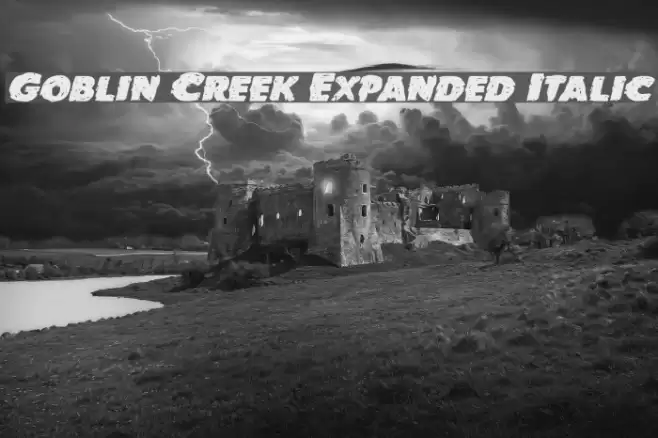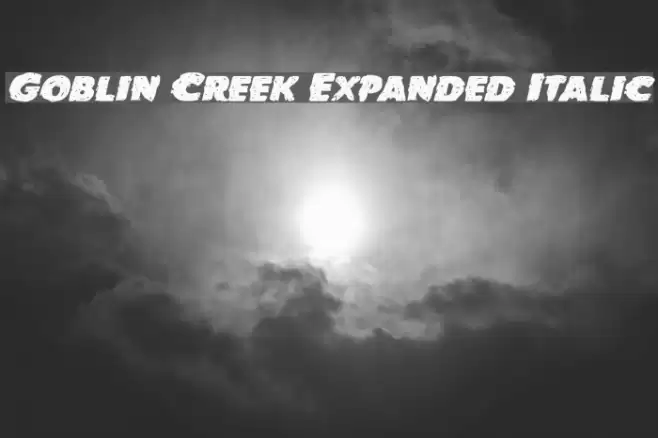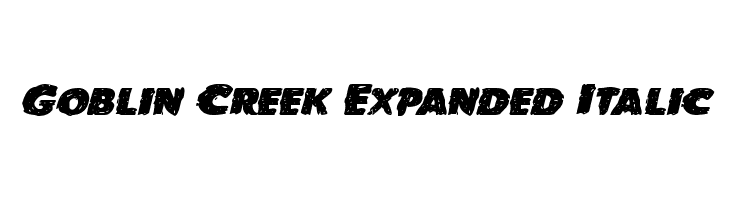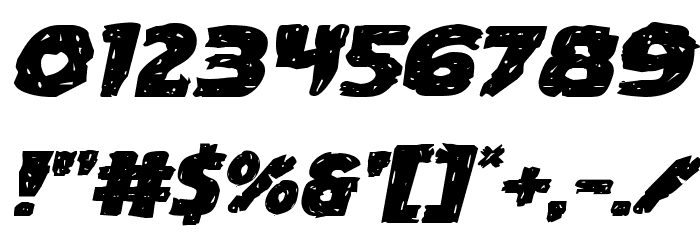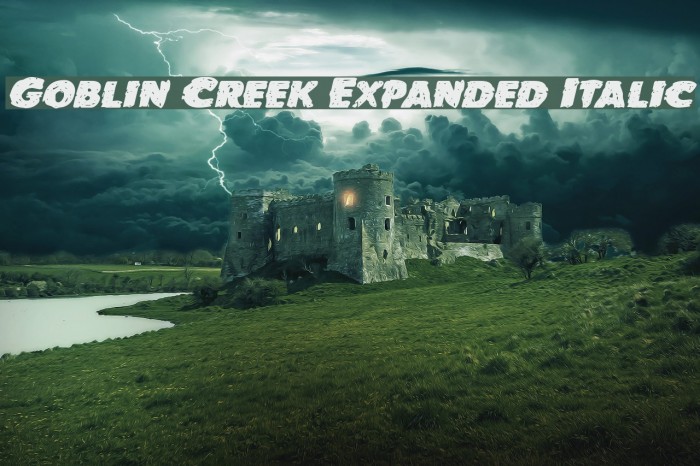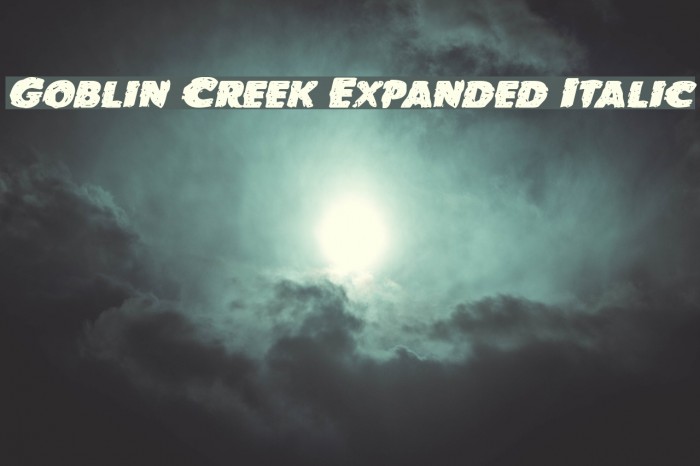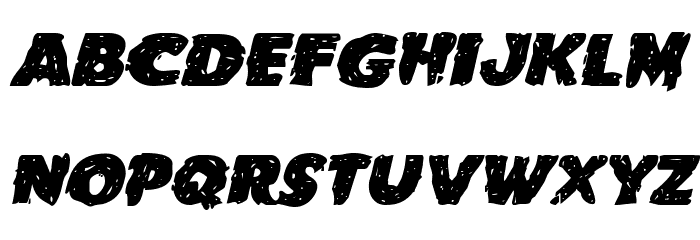
Goblin Creek Expanded Italic Font
Goblin Creek Expanded Italic Description
This font features a bold and dynamic style with an expanded and italicized form. The characters are heavily stylized with a distressed, grunge-like texture that gives them a rugged and edgy appearance. The uppercase and lowercase letters maintain a consistent design, with wide strokes and irregular edges that create a sense of movement and energy. The numbers and special characters follow the same aesthetic, making the font suitable for eye-catching designs. Its unique style makes it ideal for projects that require a bold statement or a creative, unconventional look.
A bold, expanded, and italicized font with a distressed, grunge-like texture from Horror fonts.
- Proposed Projects: Ideal for posters, album covers, video game graphics, and any project needing a bold, edgy look.